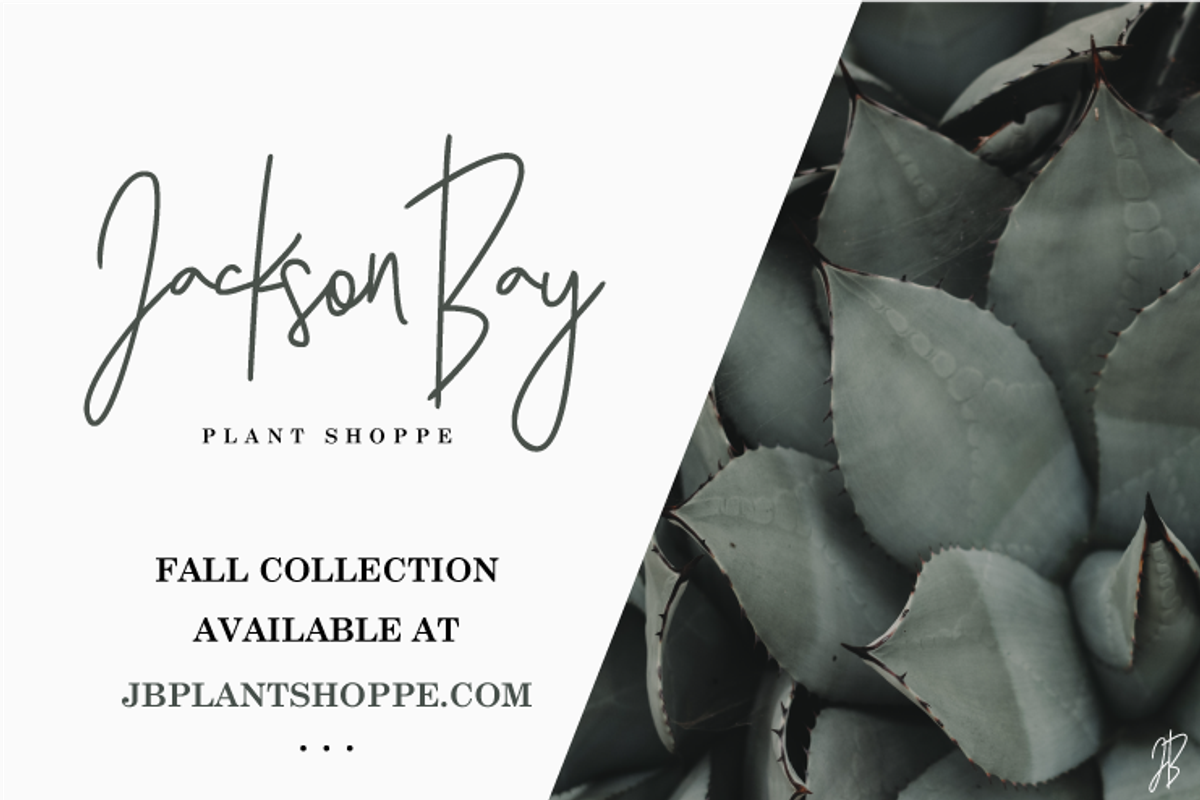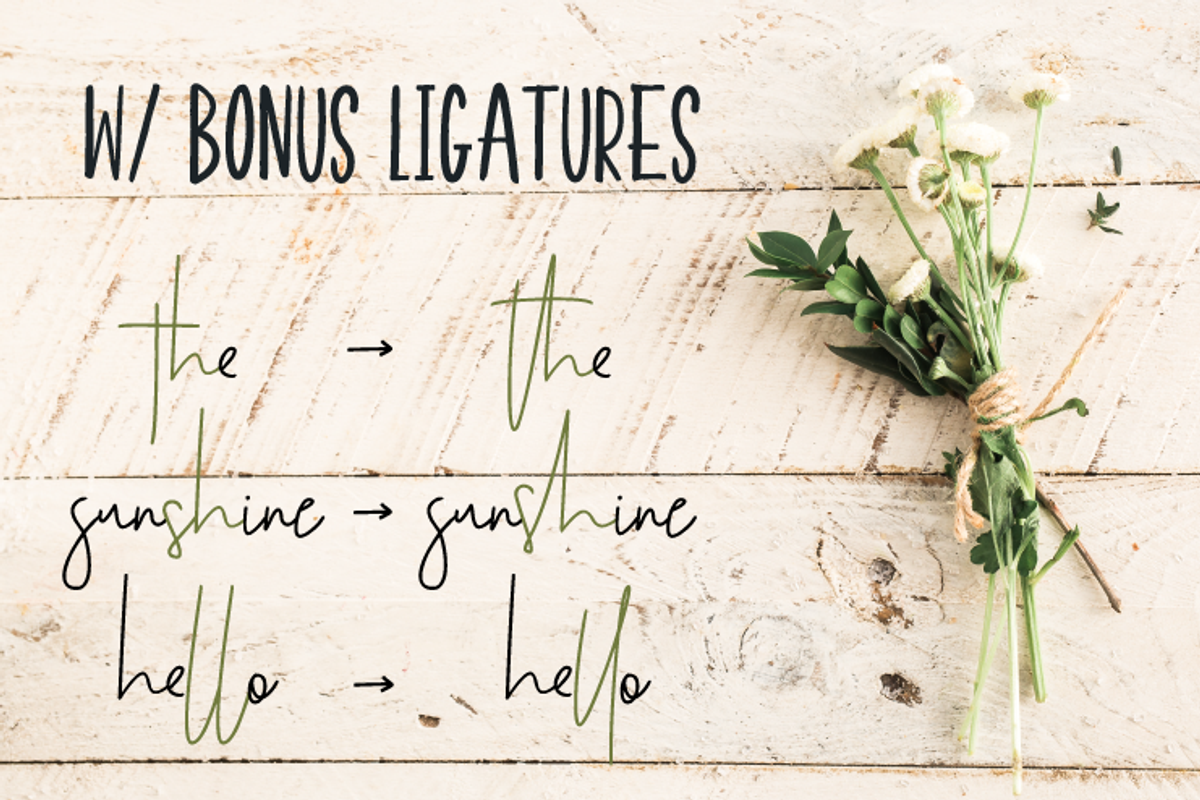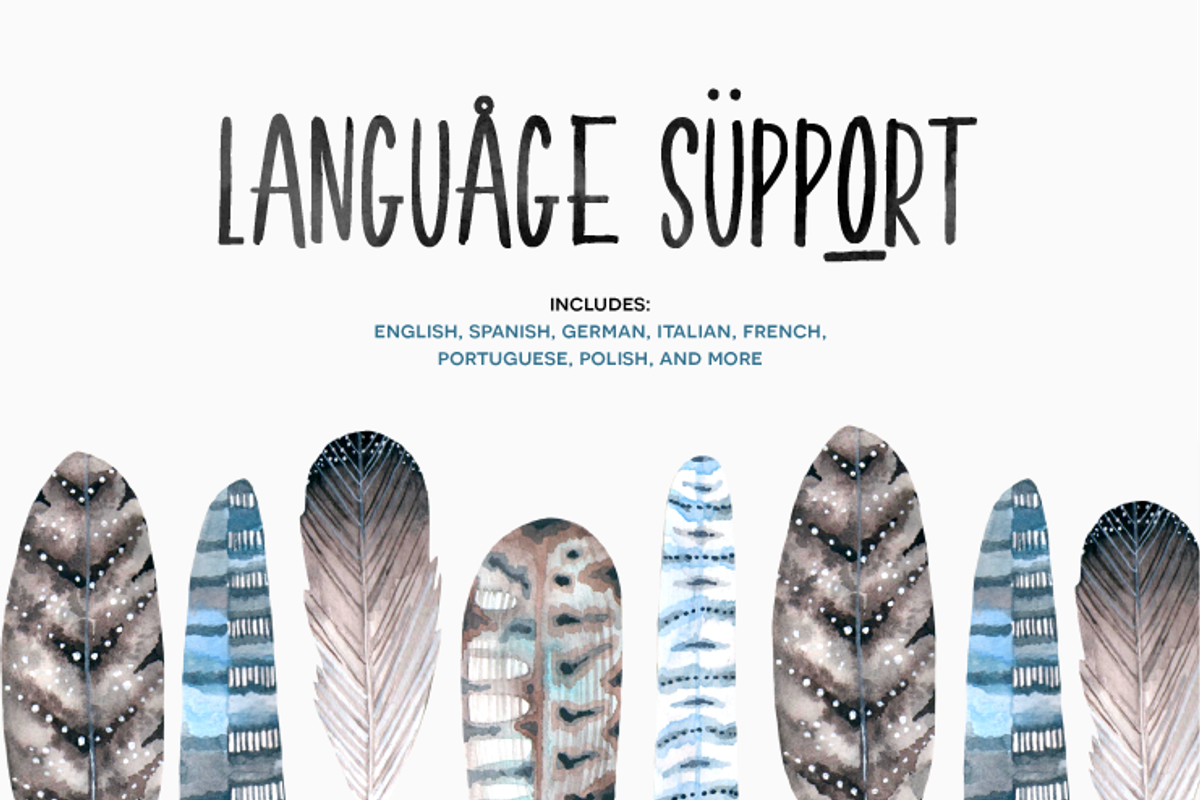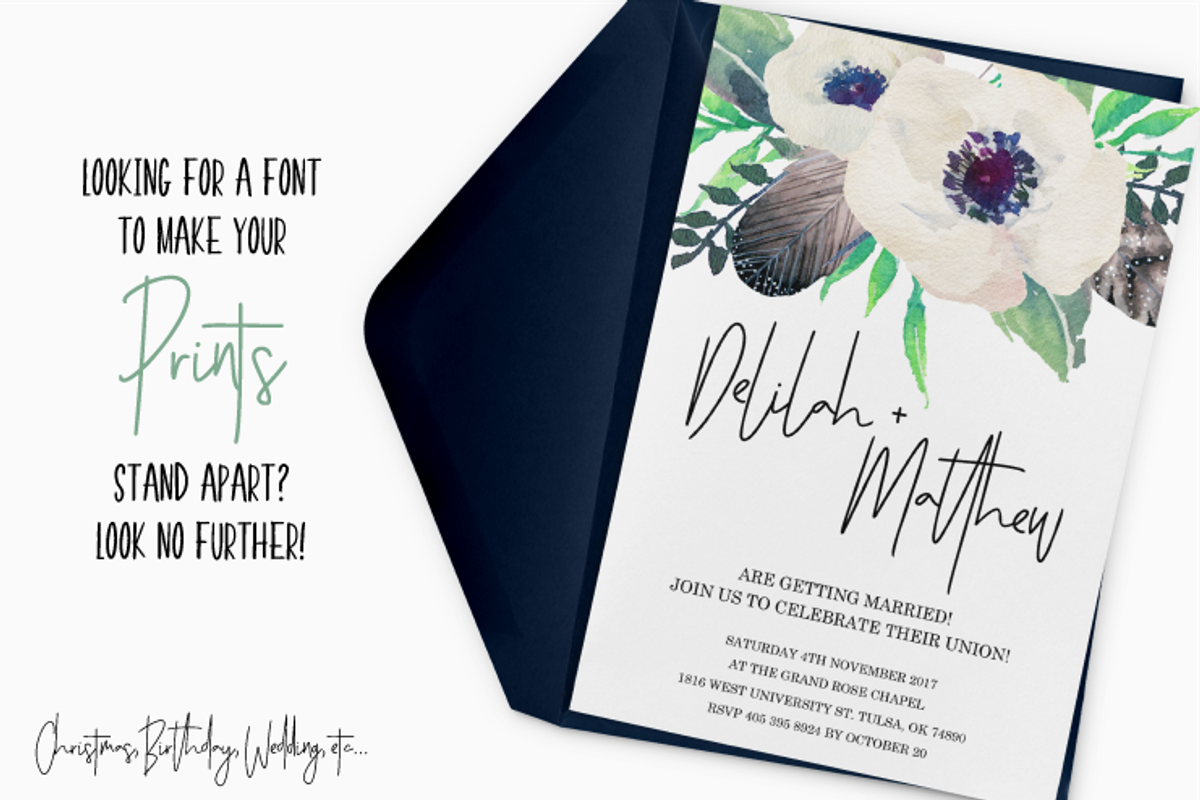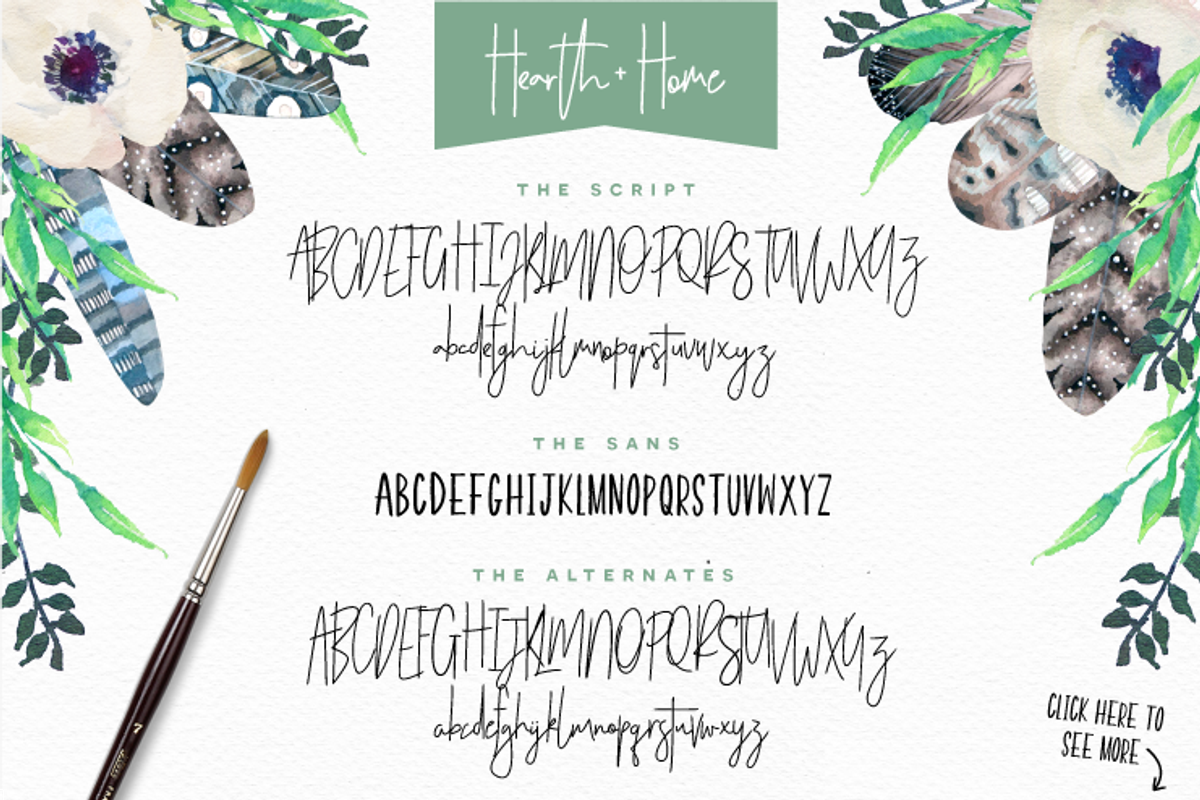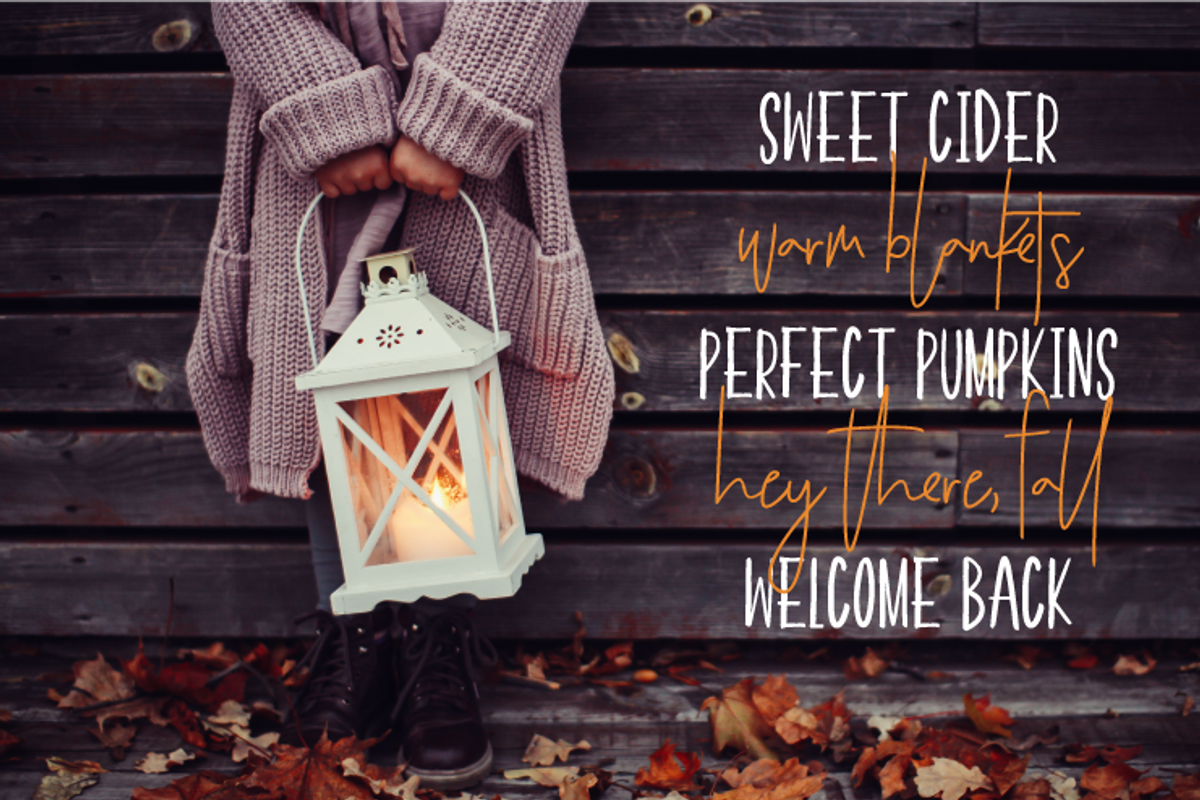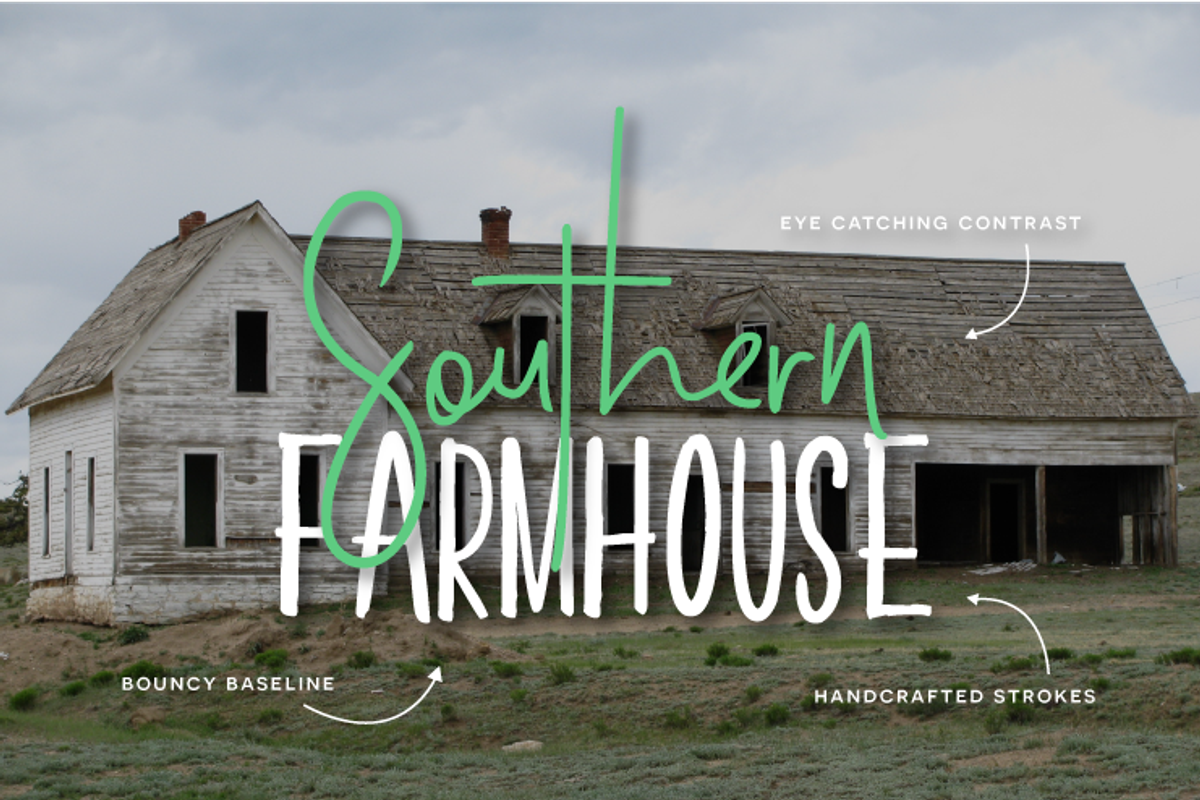
Hearth & Home Font Duo
ABOUT HEARTH & HOME FONT DUO
Hearth & Home is an authentic hand made font duo that couples a bouncy script with an all-caps sans serif! It's perfect for logos, branding, holiday cards, and more. Check out the ENDLESS design options you have mixing-and-matching these beauties!
Wanting to make sure you had everything you needed to make your project complete with that handcrafted feel, I’ve included:
Over 100 Bonus Glyphs including ligatures and International Language Support (English, French, Spanish, German, Polish, Italian, Portuguese, Latin, & More)
Why Hearth & Home Font Duo is worth a look
Hearth & Home Font Duo by Flycatcher Design fits naturally into Branding, posters, packaging, typography.